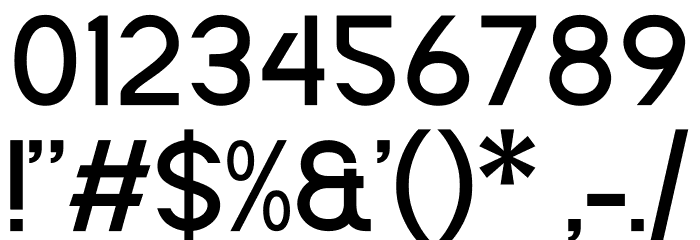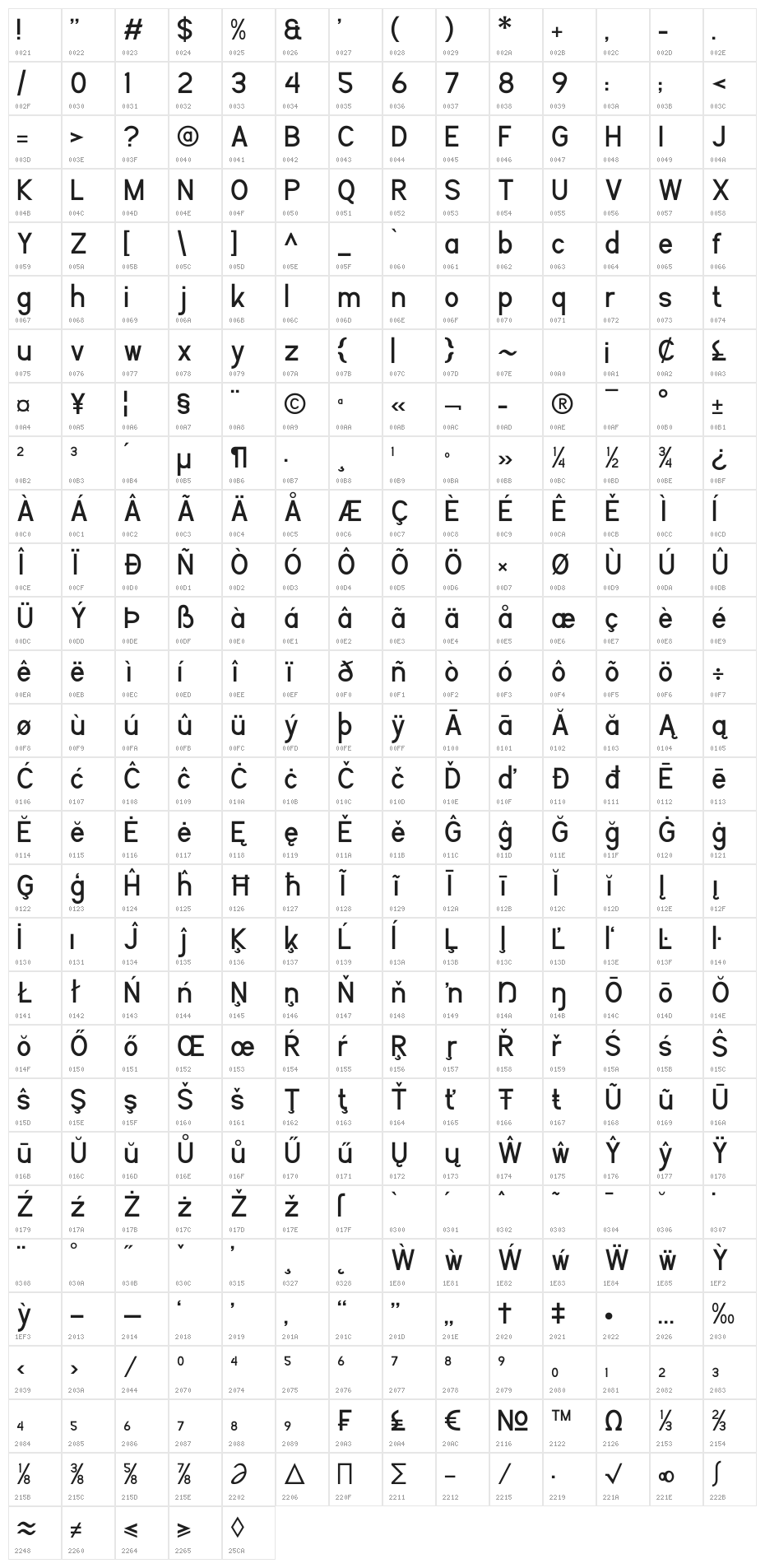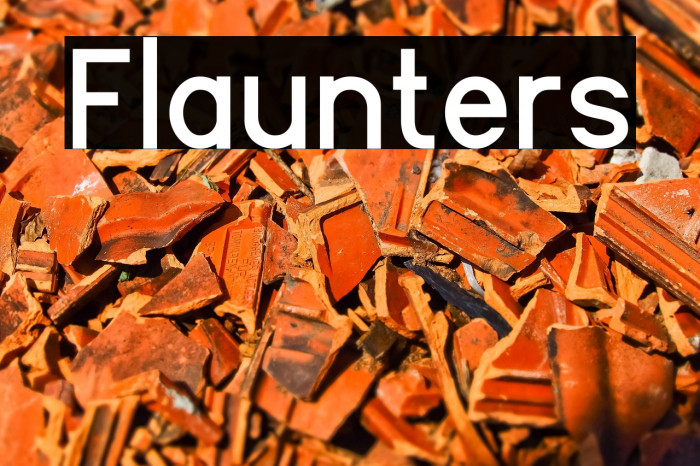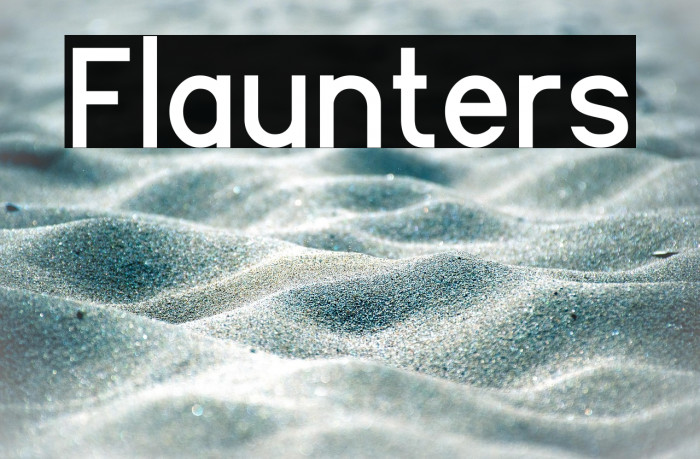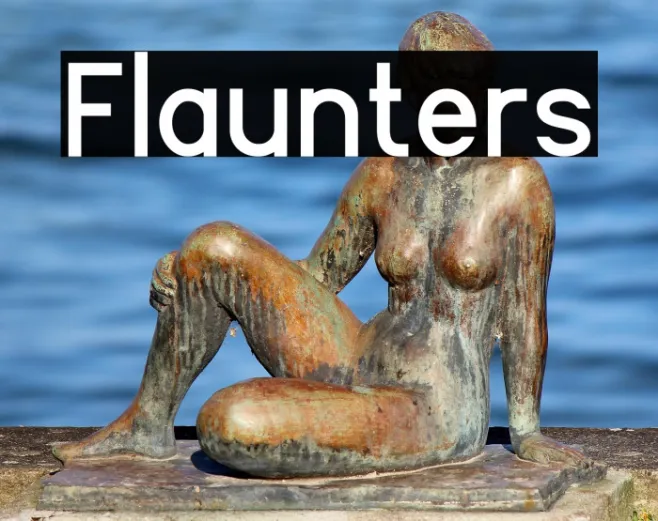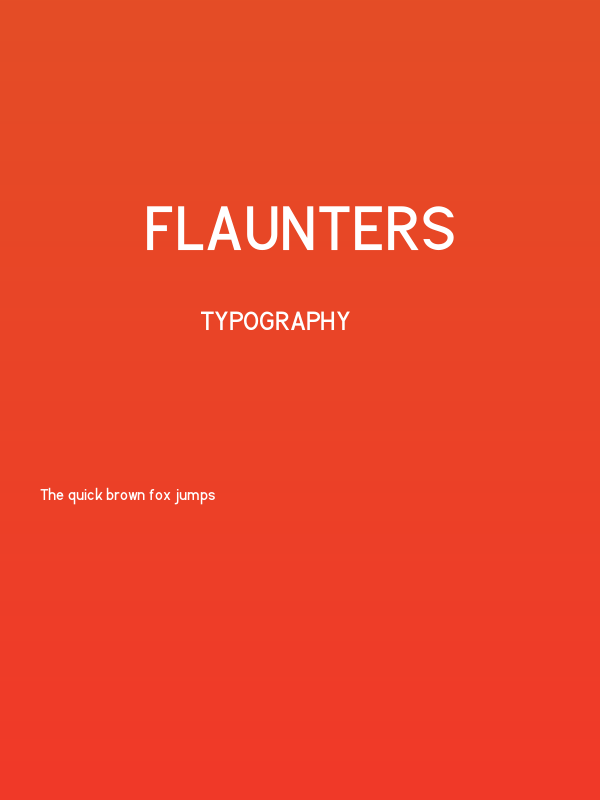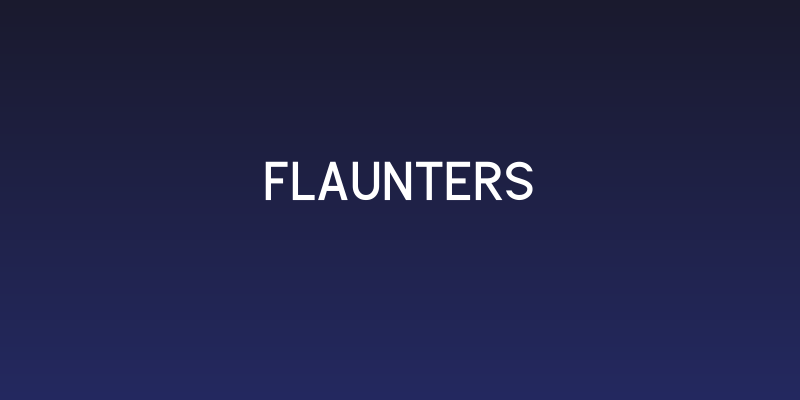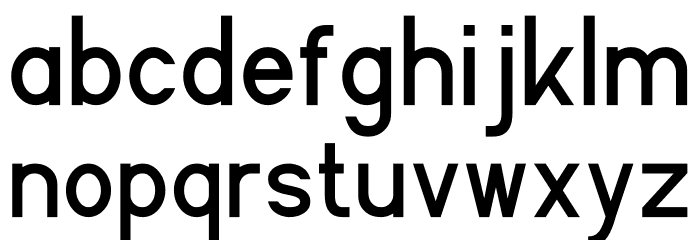
Flaunters Font
Flaunters Description
This font features a clean and modern sans-serif design, characterized by its uniform stroke width and geometric shapes. The uppercase letters are bold and assertive, while the lowercase letters maintain a consistent height and width, providing a balanced and harmonious appearance. The numerals are clear and easily distinguishable, making them suitable for various applications. Special characters are well-defined, adding versatility to the font's usage. The overall style is minimalistic, making it ideal for contemporary design projects.
| Proposed Projects | Ideal for branding, web design, advertising, and editorial layouts due to its clarity and modern aesthetic. |